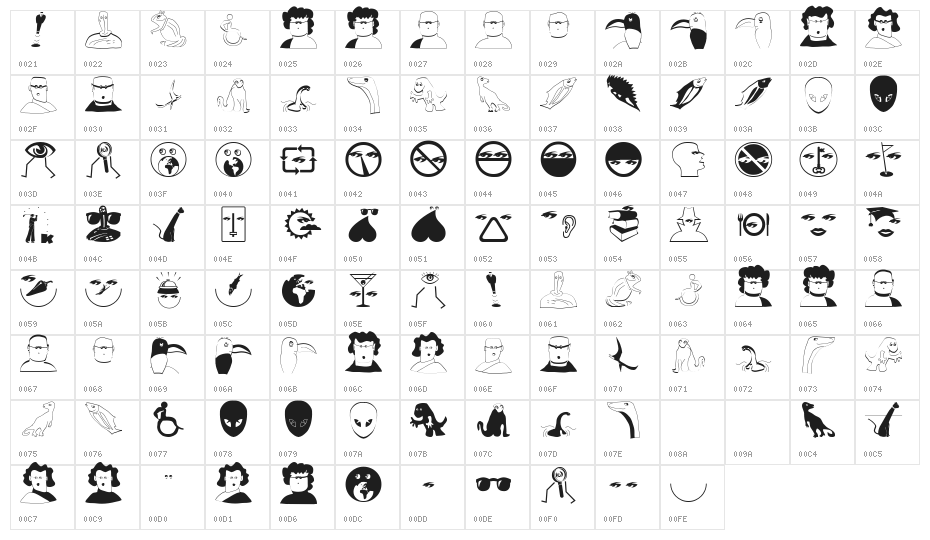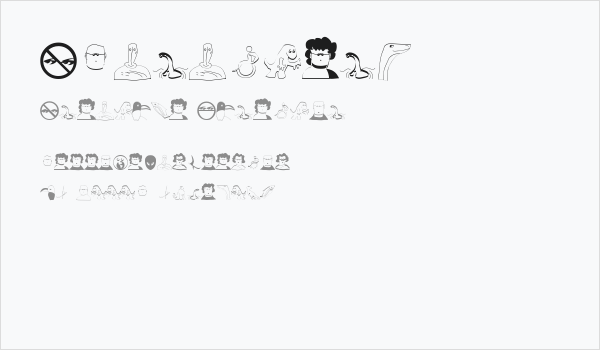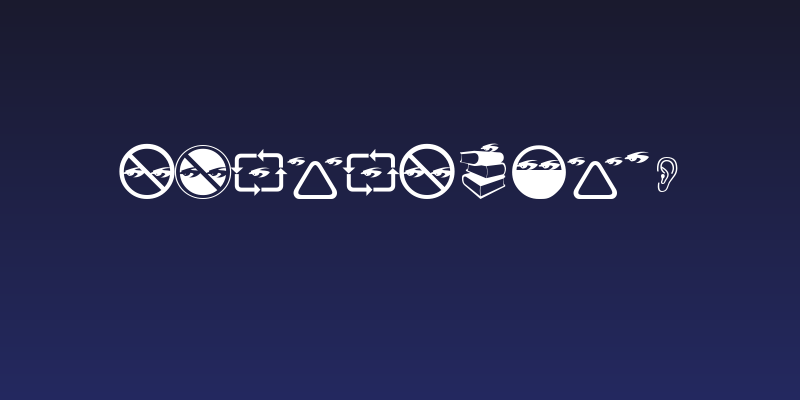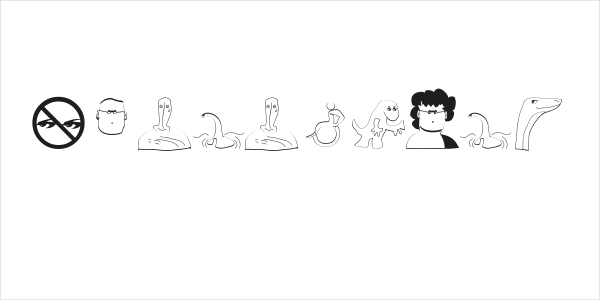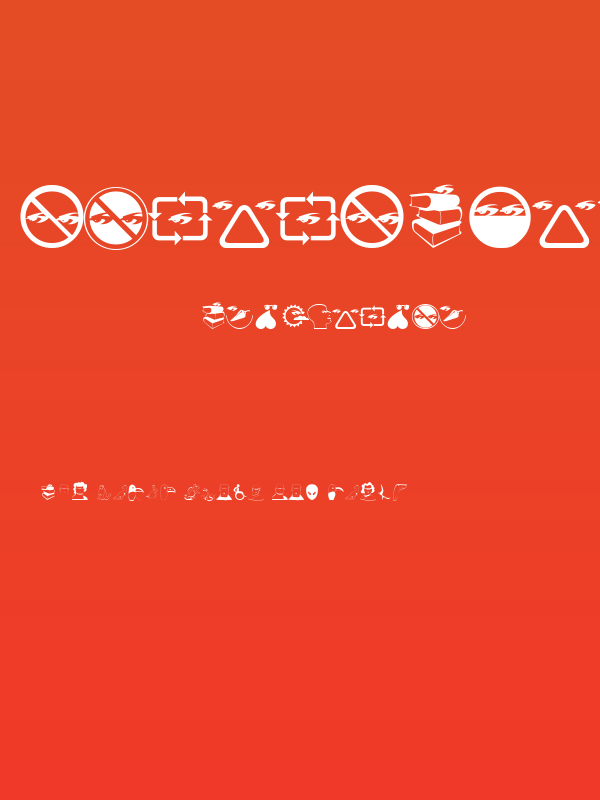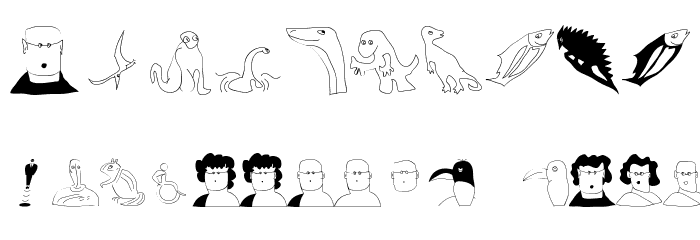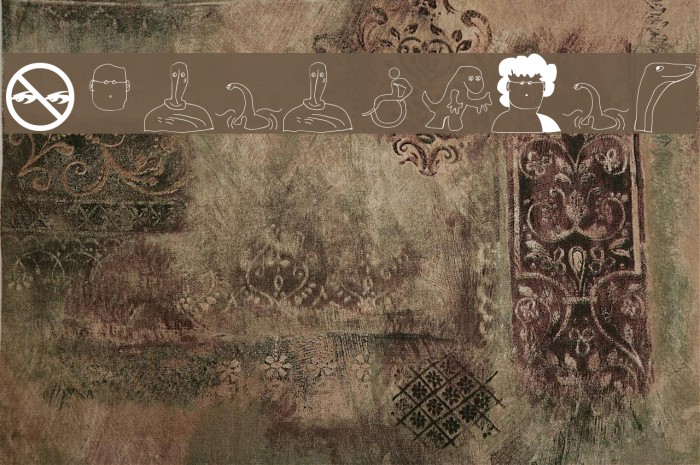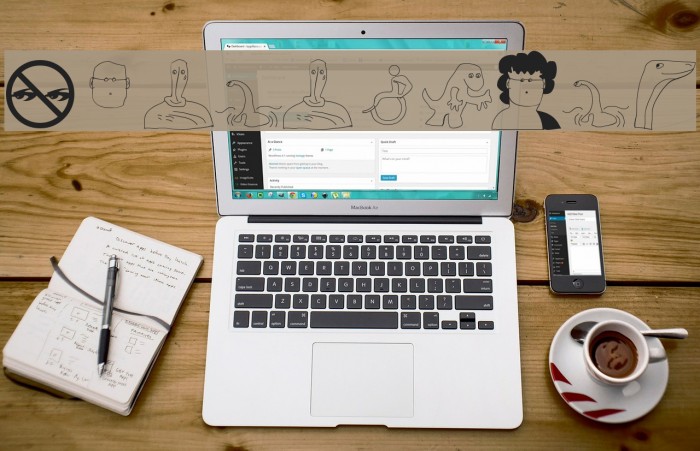
Characters Font
Characters Description
A highly illustrative and whimsical font composed entirely of unique pictograms, including faces, animals, abstract shapes, and various objects. Each character is represented by a distinct drawing, making the set visually engaging and unconventional for standard text use.
| Overall Style | Decorative, Playful, Whimsical |
| Use Case | Logos, Posters, Educational graphics, Visual storytelling |
| Proposed Projects | Children’s books, educational materials, creative posters, playful branding, visual storytelling, icon sets. |